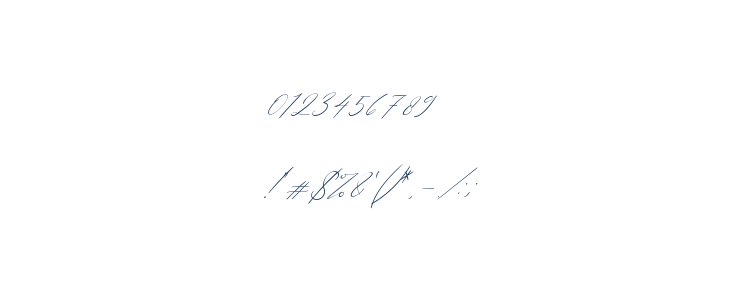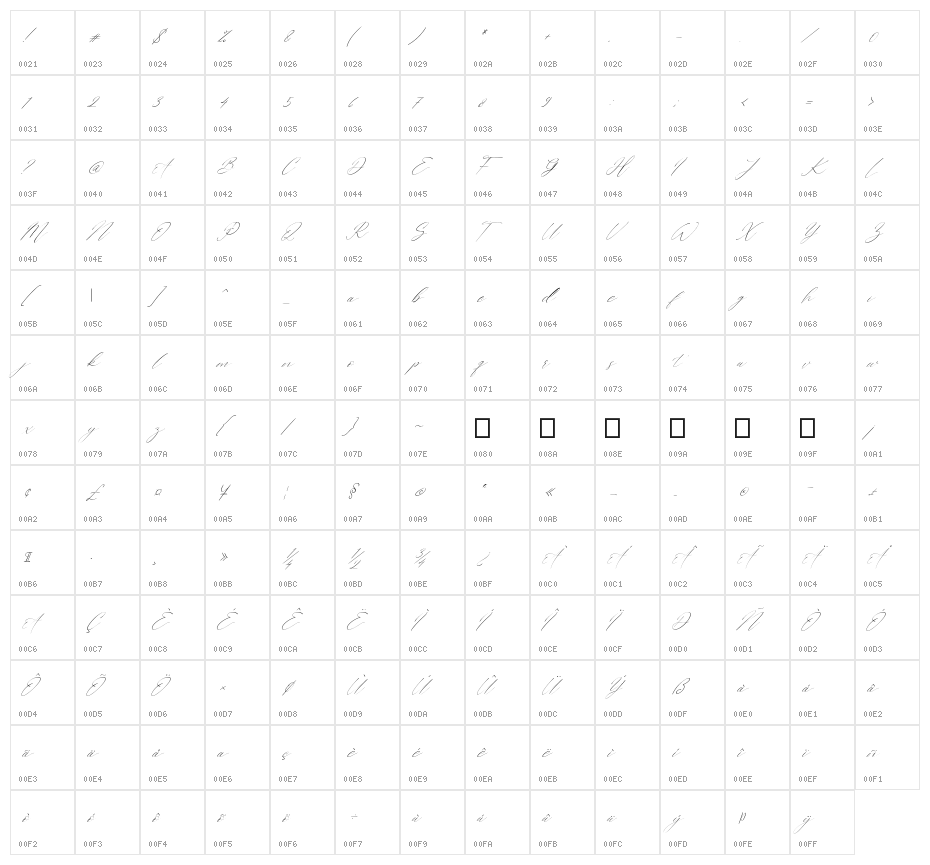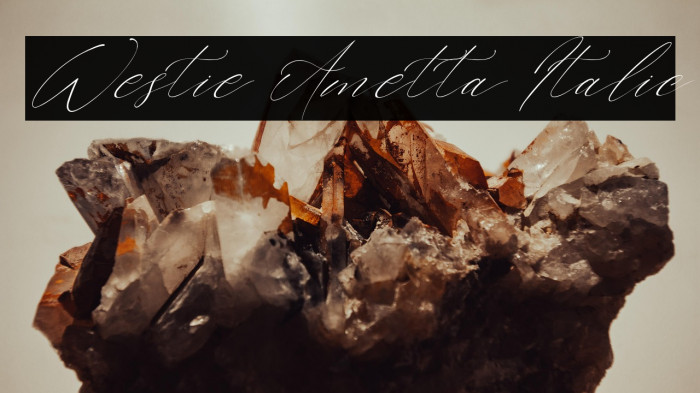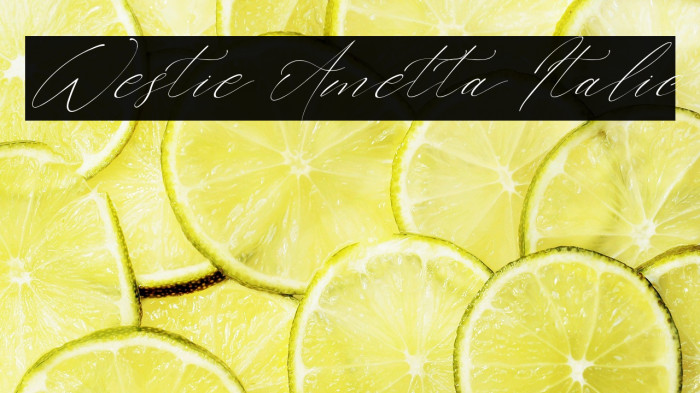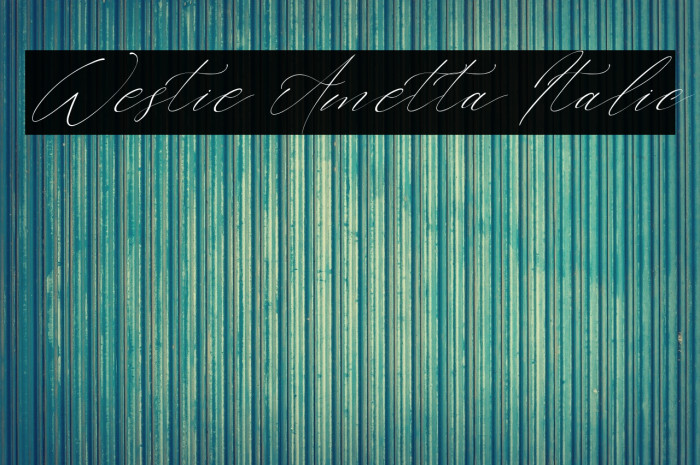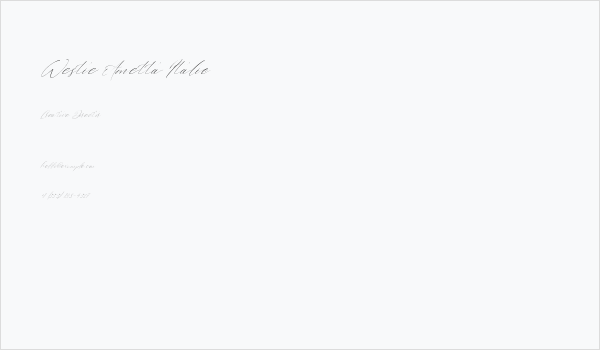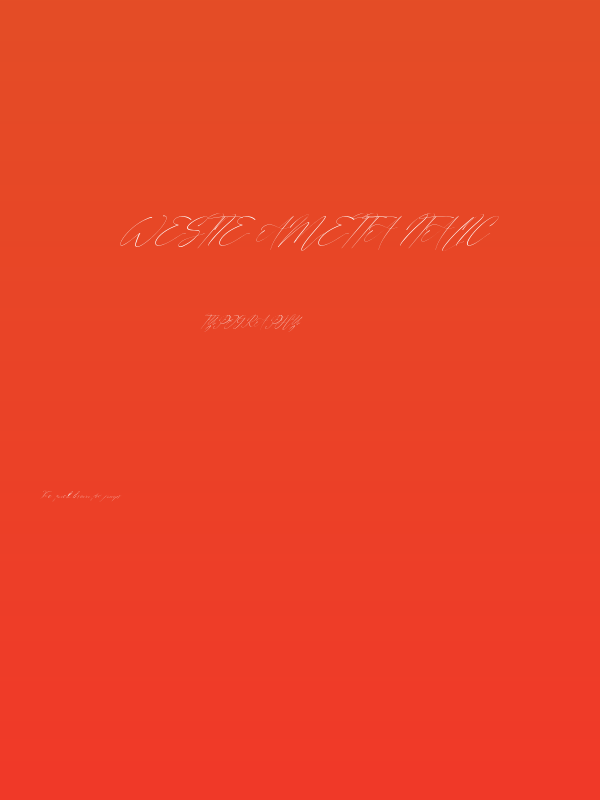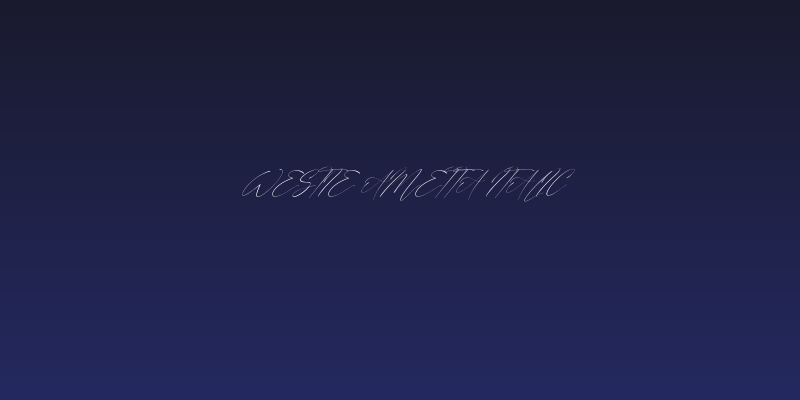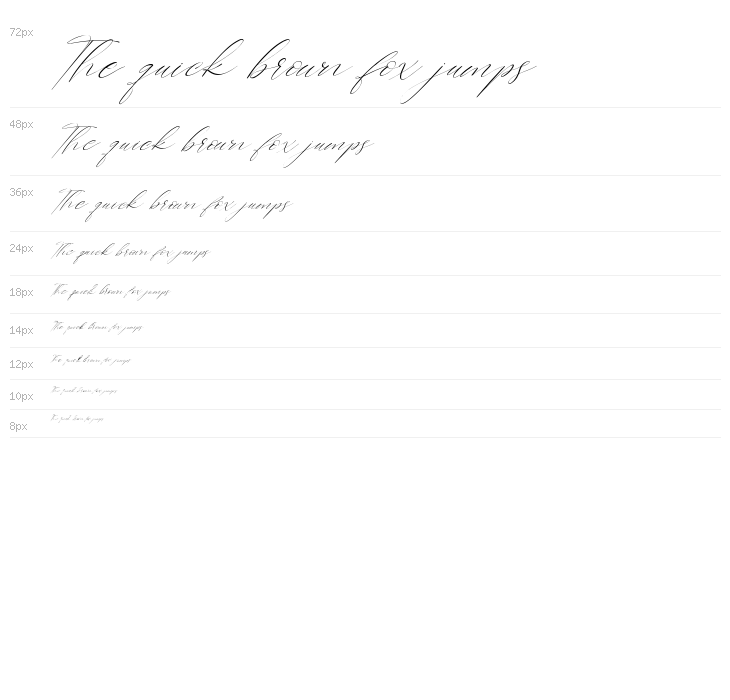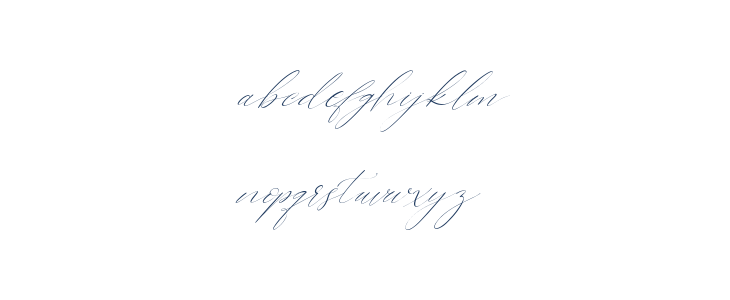
Westie Ametta Italic Font
Westie Ametta Italic Description
This elegant script font features a flowing, cursive style with a sophisticated and refined appearance. The characters are connected in a fluid manner, creating a sense of motion and grace. The strokes are delicate and thin, with a consistent slant that adds to the overall elegance. The uppercase letters are slightly larger and more ornate, while the lowercase letters maintain a smooth and cohesive look. The numerals and special characters are designed to match the script's aesthetic, ensuring a harmonious appearance across all text. This font is perfect for projects that require a touch of class and sophistication.